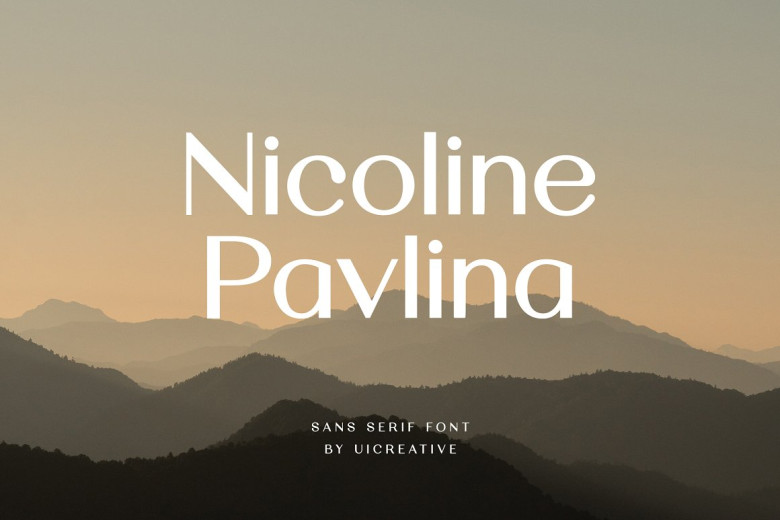
Nicoline Pavlina Font
Nicoline Pavlina is a modern sans serif font. A classic-style serif font, it looks good in all use; whether printed in black and white newspapers or displayed across the facade of a building in high-tech color graphics, without one bit more scent of rendering than from any other. That is to say: Perhaps this font is not as good alone. This font is suitable for a wide variety of projects, such as signature, stationery, logo, wedding, typography quotes, magazine or book covers, website headers, clothing, branding, packaging design, and more
Nicoline Pavlina Sans Serif Font